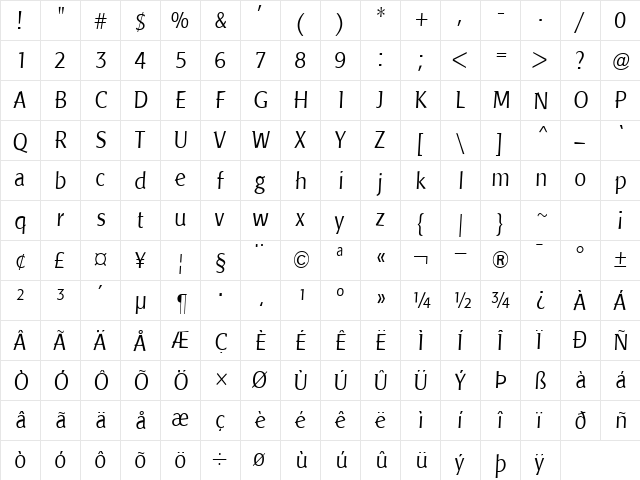
LTPisa Light Regular
Design Context for LTPisa Light Typeface
LTPisa Light offers clean, dependable letterforms without strong stylistic allegiance, making it a practical choice for designers who need flexibility. The delicate stroke weight brings airiness and refinement to layouts.